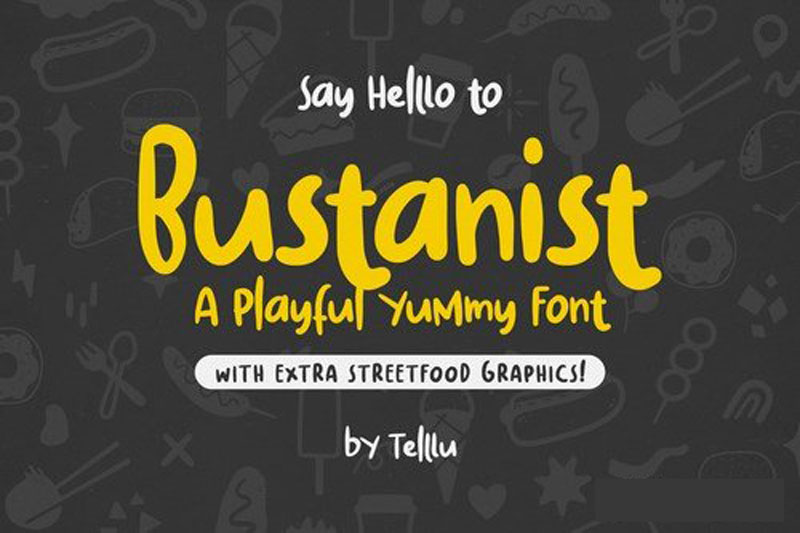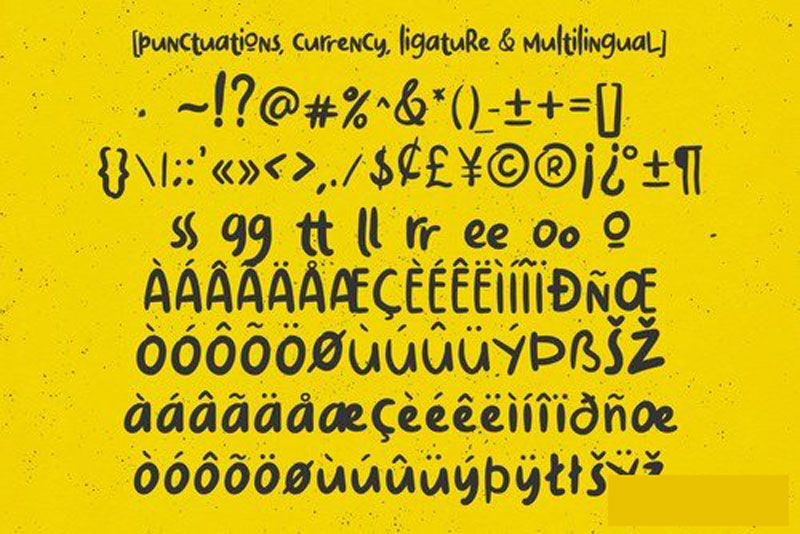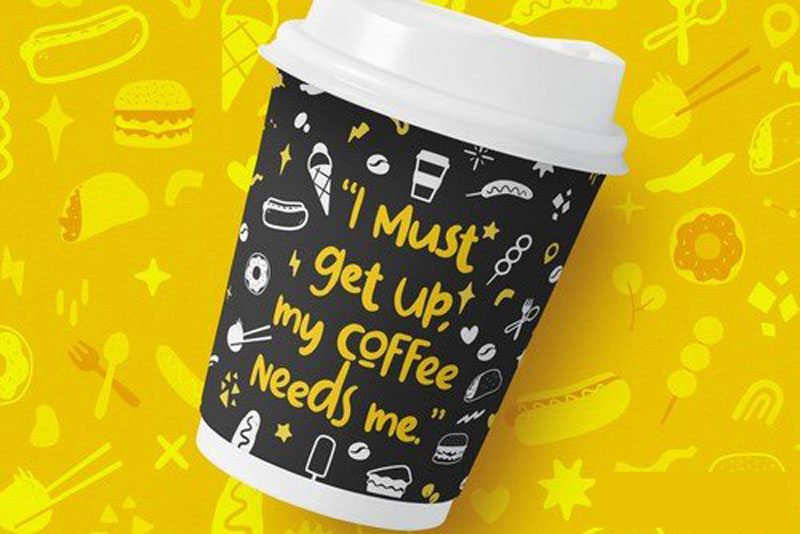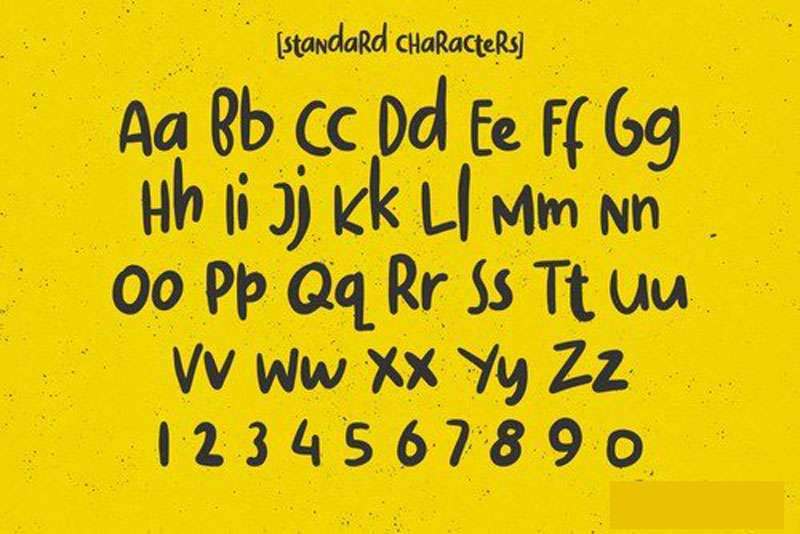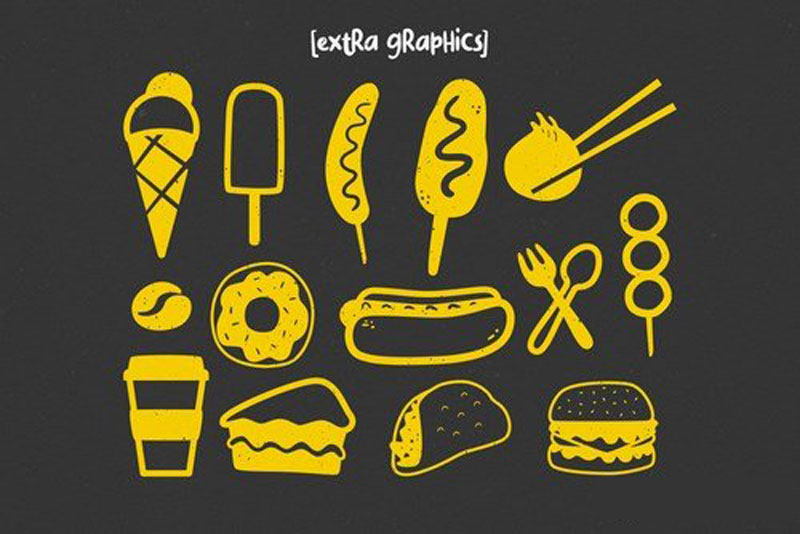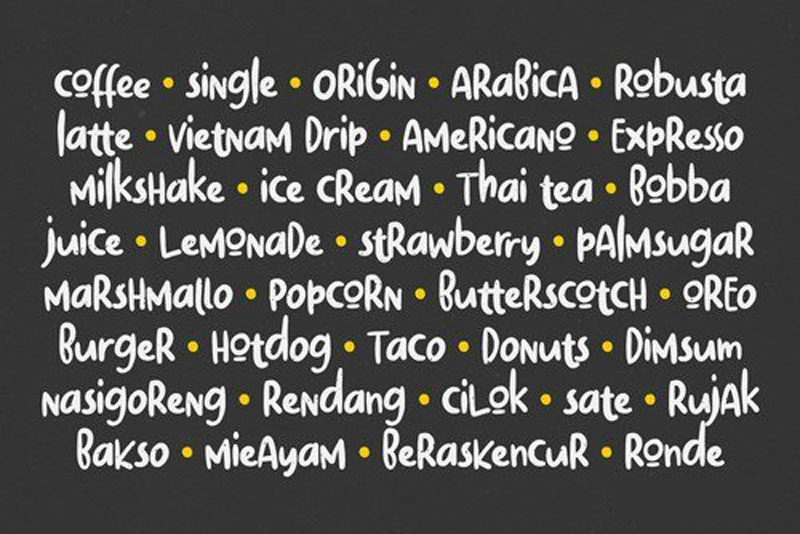
Bustanist – A Playful Yummy Font with Extra
Bustanist is a playful yummy font with extra street food graphics. It’s perfectly suited for any culinary projects like street food, food truck, restaurant, cafe and any branding material like logo, menu, packaging, quotes, flyer, poster, banners,